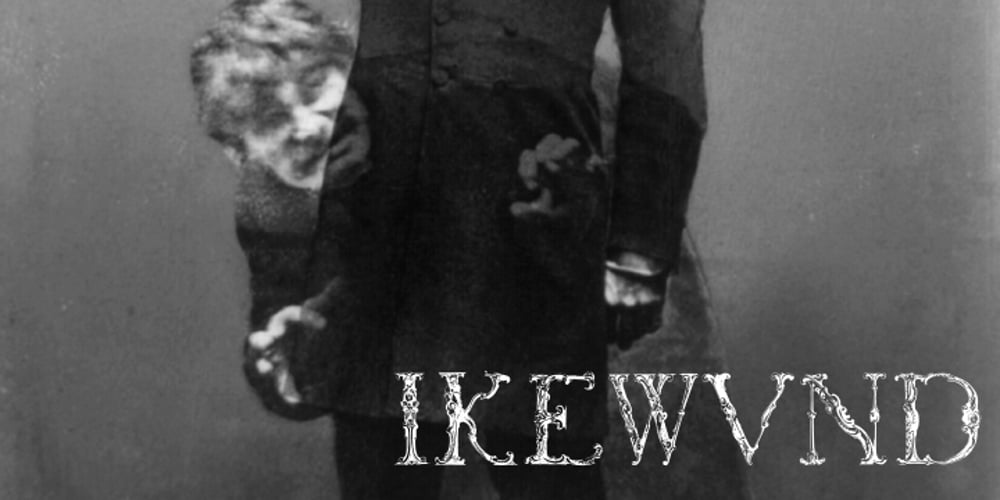
Ikewund Font Family was designed by Paulo W and published by Intellecta Design. Ikewund contains 1 styles and family package options. Ikewund is a font with a peculiar creepy feeling. Great for header designs.